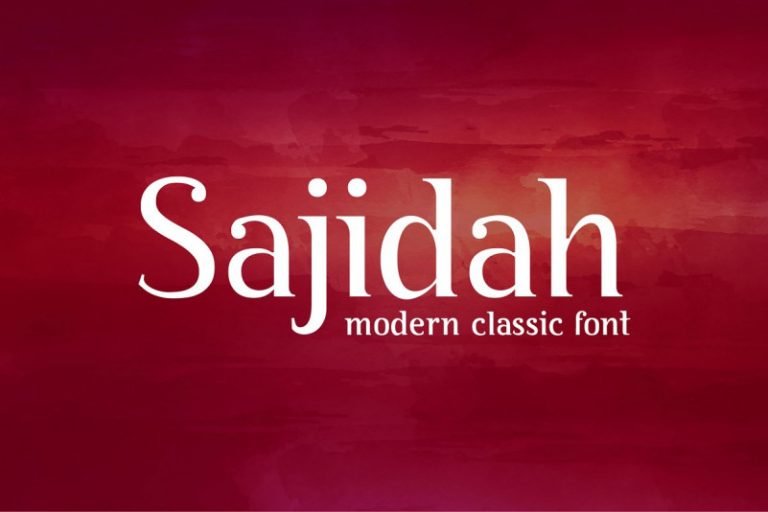
BY Sajidah Modern Classical Font
Thank you for looking BY Sajidah Serif Font. This is a graceful and reliable serif, useful in any situation. BY Sajidah design and shared by byaboemair. BY Sajidah Modern Classical Font is a modern classical serif font. Sajidah is a font that has a modern shape and is suitable for use to give a feminine and modern impression without losing the classic taste of serif. Sajidah has three different weights, ranging from Regular, SemiBold, and Bold. This font is highly recommended for use as headline, bodytext, and logotype.